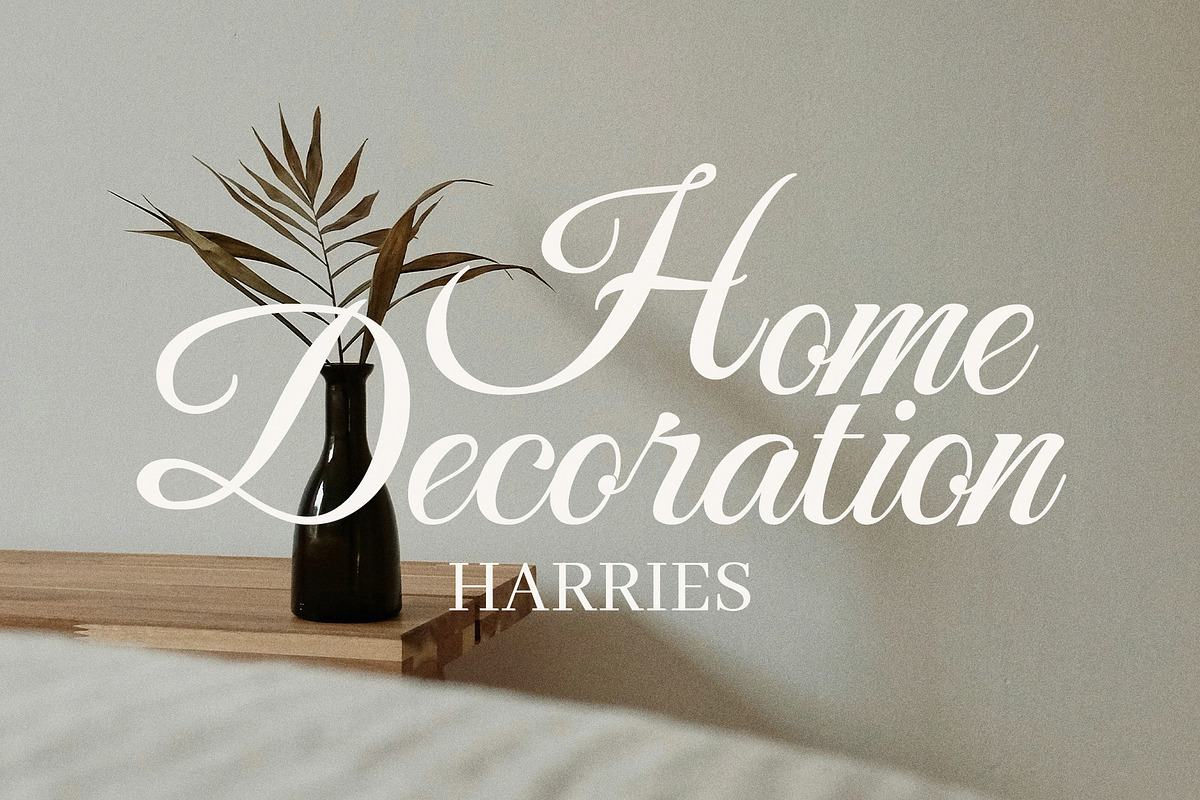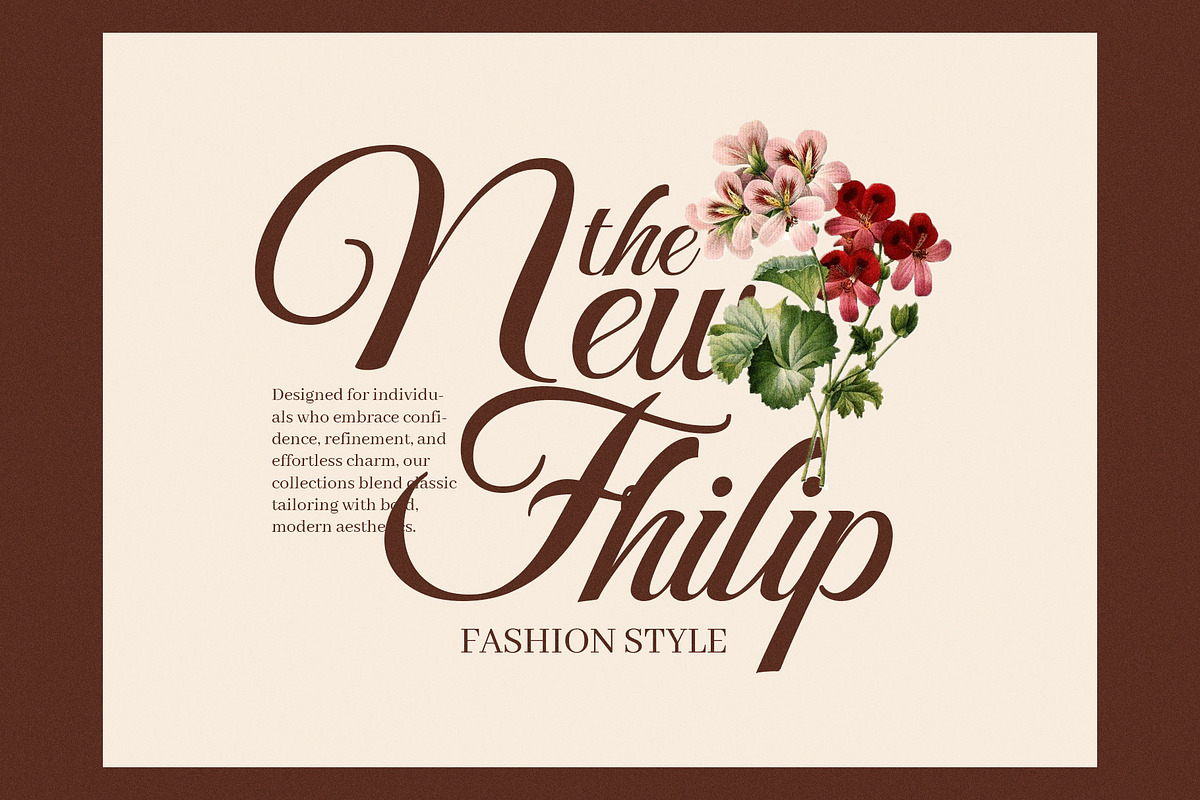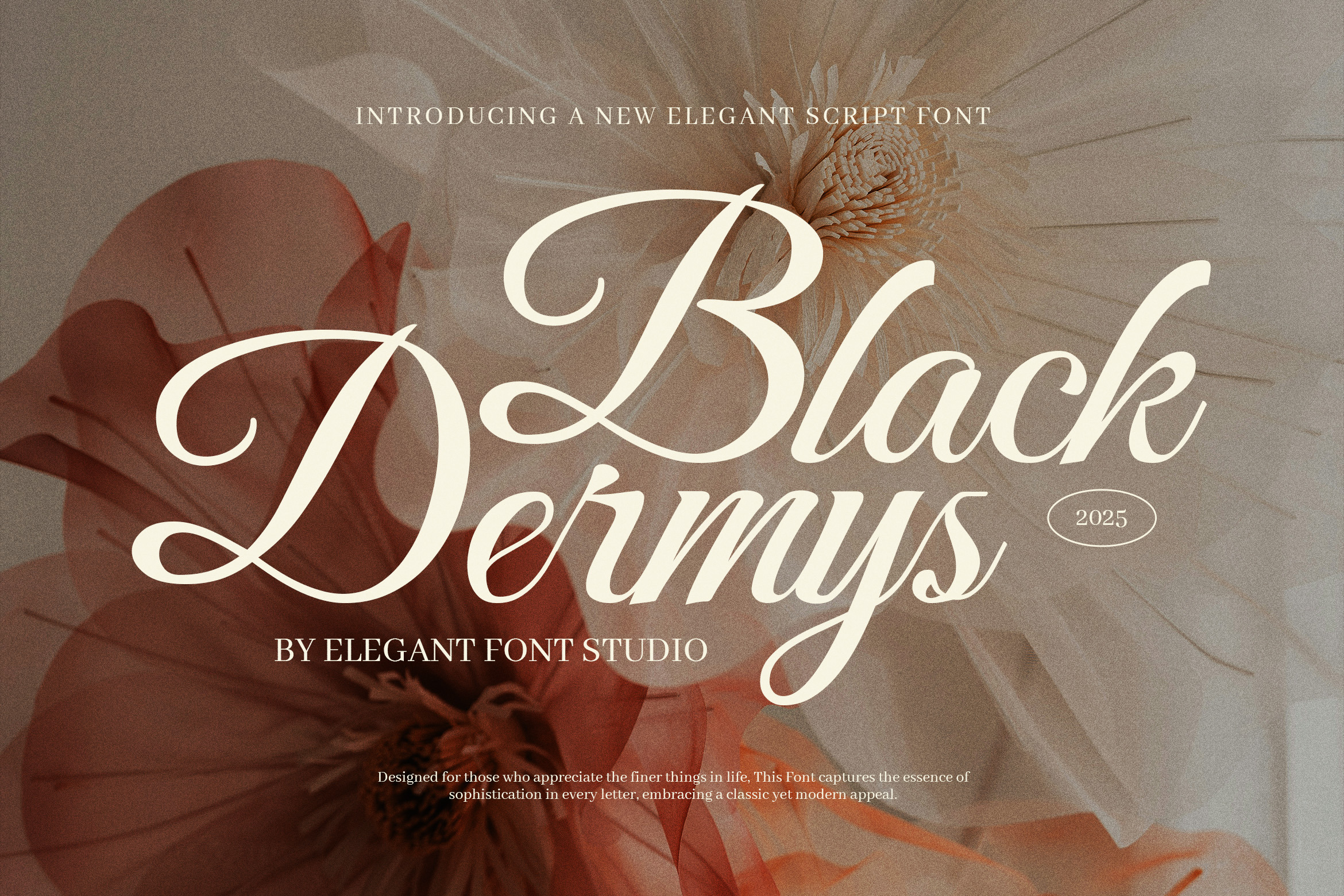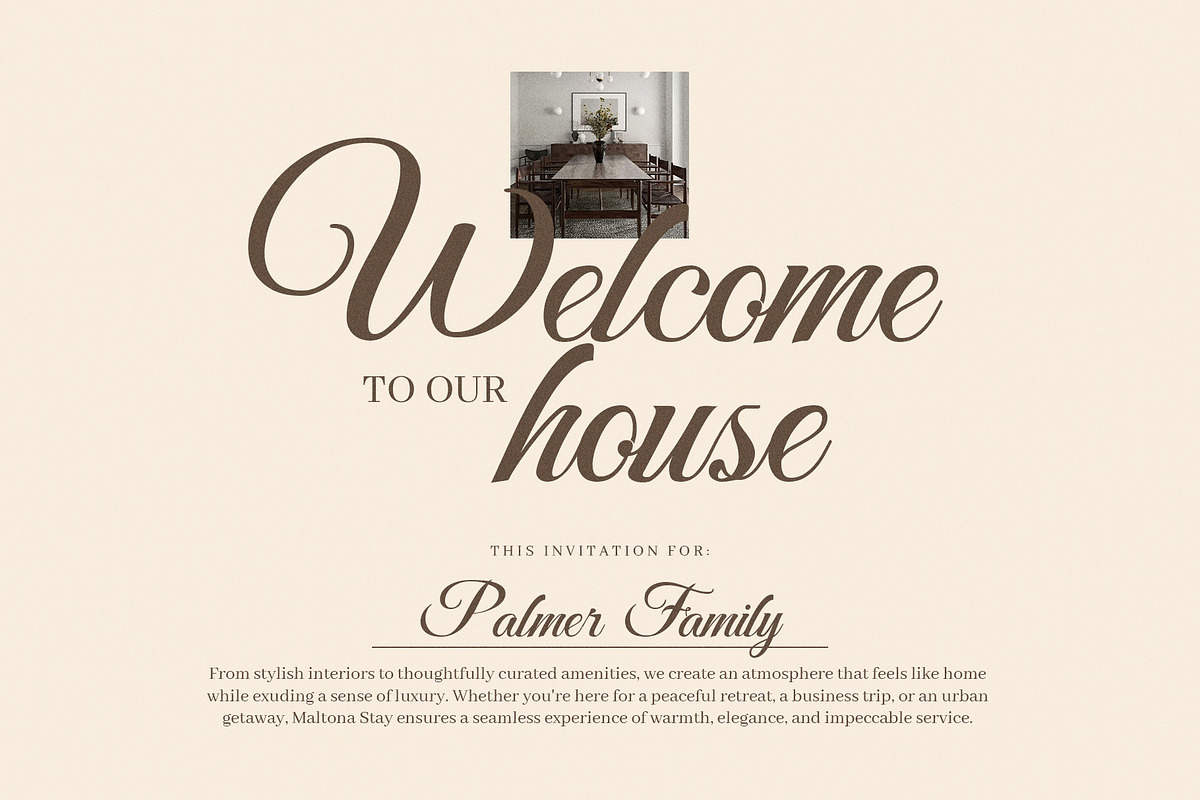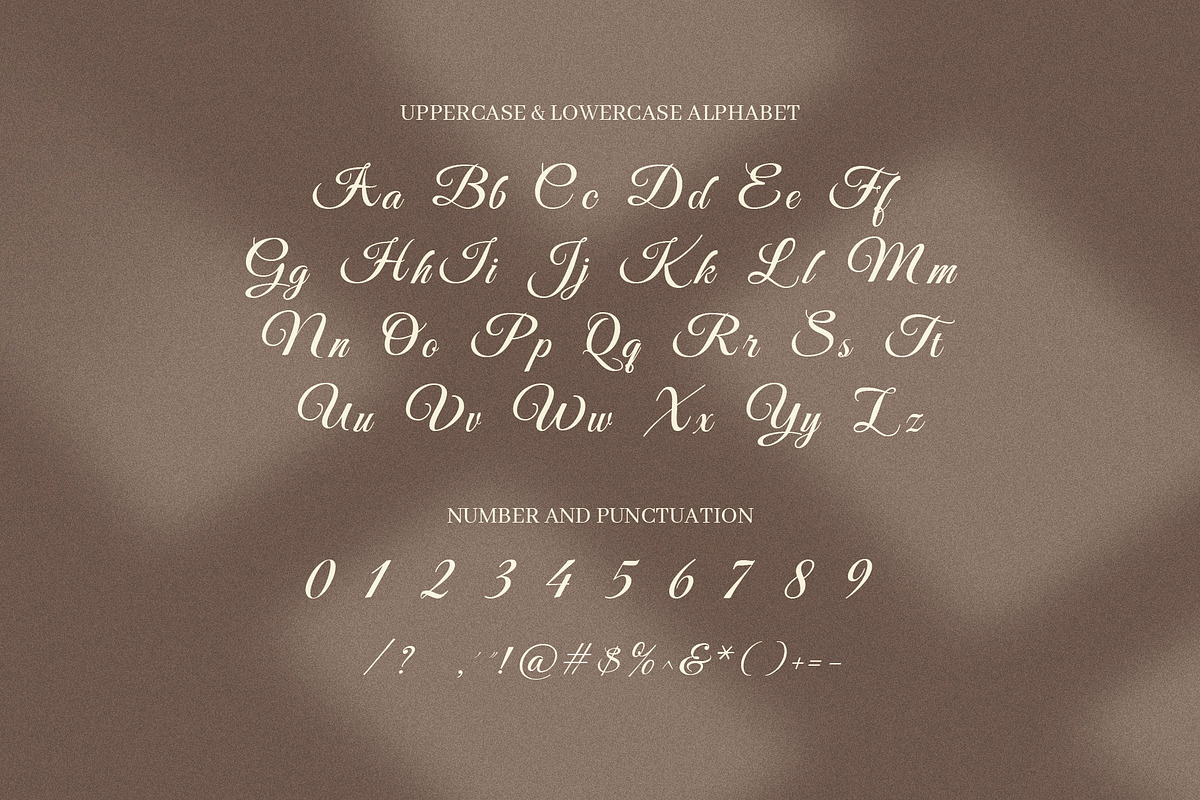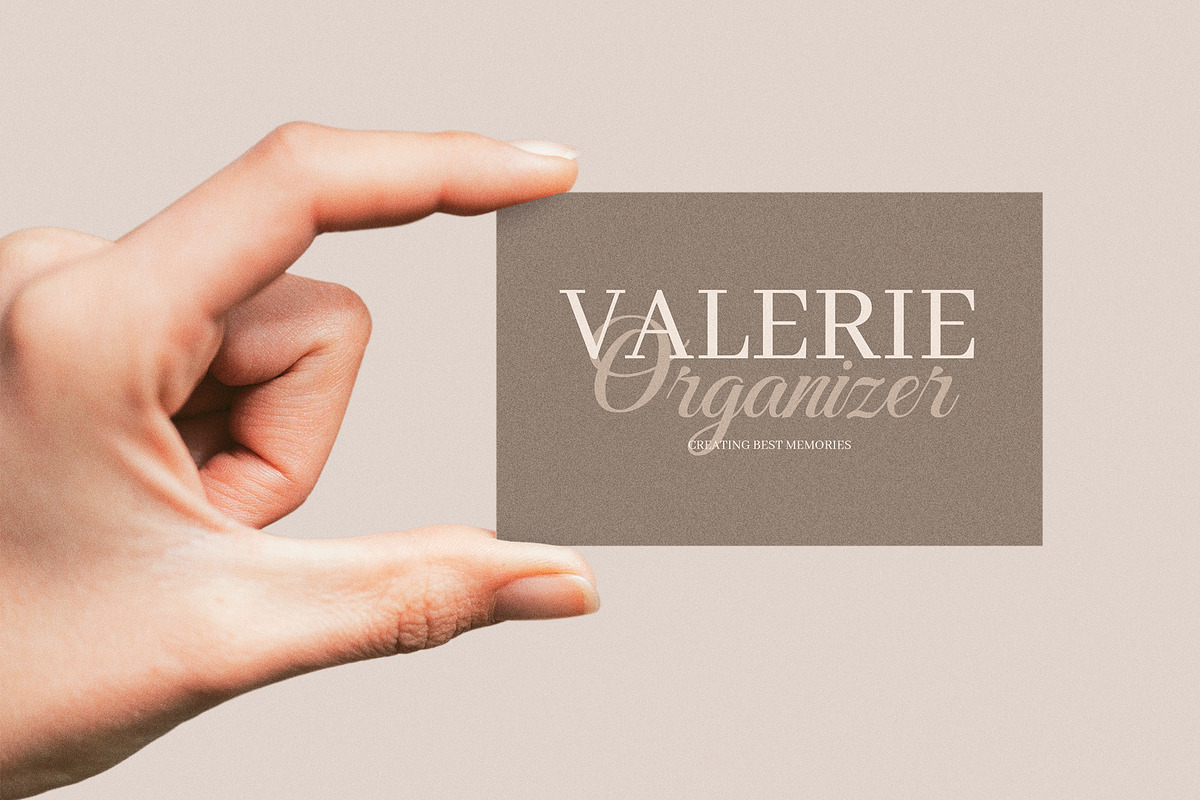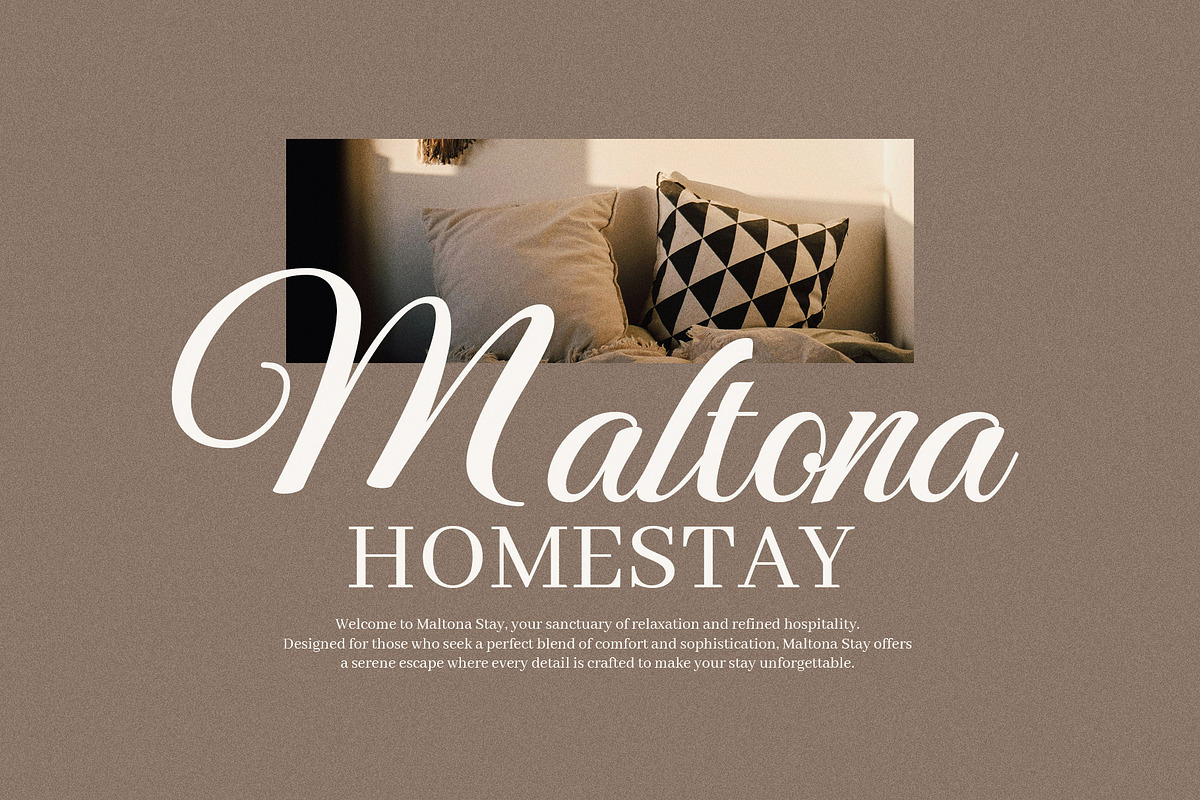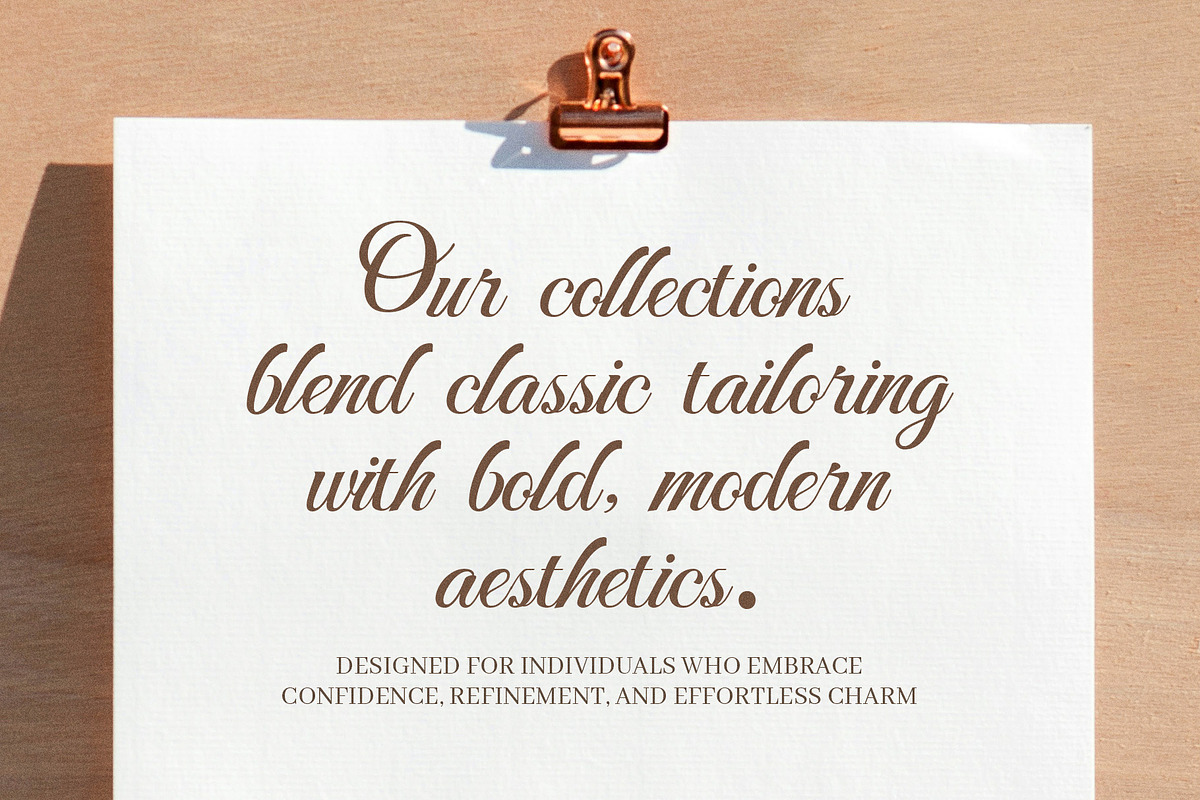
Black Dermys Wedding Font
Black Dermys Wedding Font is a sophisticated and artistic script font that exudes charm, romance, and timeless beauty. Crafted with precision and a keen eye for elegance, this font blends graceful strokes with refined curves to create a luxurious handwritten style that feels both classic and modern.
Perfectly suited for wedding invitations, branding projects, elegant logos, and romantic stationery, Black Dermys brings a personal, heartfelt touch to any design. Each letter has been thoughtfully designed with a rich variety of calligraphic alternates and ligatures, offering endless customization and a seamless flow for every word. Whether you’re designing a high-end event invitation, a signature-style logo, or an eye-catching magazine cover, this font ensures your message is delivered with class and creativity.
Black Dermys is more than just a font—it’s a design statement. Its graceful forms make it ideal for use in album covers, fashion lookbooks, boutique branding, website headers, and social media graphics. Its ability to transition effortlessly from formal wedding typography to modern luxury branding makes it a versatile tool for any designer seeking to elevate their visual storytelling.
Whether you're crafting a personal monogram, launching a new brand identity, or designing memorable keepsakes, Black Dermys Wedding Font delivers beauty, sophistication, and emotional impact in every character. It’s the ideal choice for creatives who want to infuse their work with a sense of grace, romance, and artistic flair.